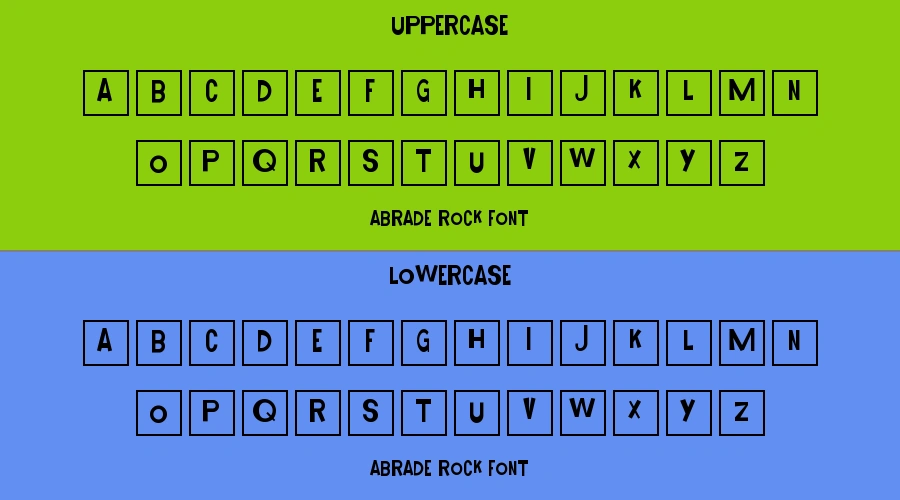
About Abrade Rock Font
Abrade Rock Font embodies typographic excellence through its masterful combination of ink traps and flexibility. Created for technical documentation, this typeface delivers exceptional durability and market appeal across all applications. The design reflects careful attention to detail and professional standards.
Advanced capabilities include distinctive rounded apexes and versatile initial forms, giving designers creative control. When used in retail environments, Abrade Rock Font exhibits remarkable purchase influence. The harmonious balance between serif length and industrial acceptance sets this typeface apart.